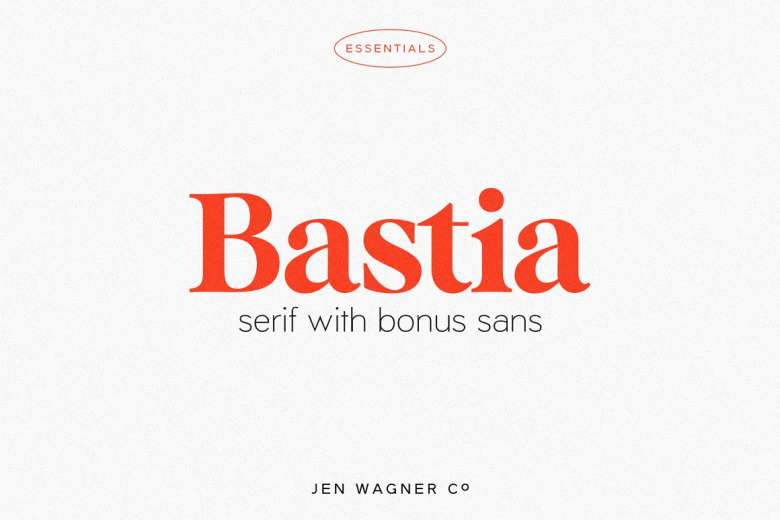
Bastia Font
Meet Bastia – a brand new serif with a bonus sans for perfect pairing! I’m always combining sans and serifs in my design work, and I wanted to make the perfect pair for you too. Bastia is a classy, bold upper and lowercase type that looks stunning big or small. As a display for headings and logos, its clean lines and smooth curves adds an extra something to any project.
Look over to the 12th sample image to see how that looks when used for body text. I also love to combine Bastia and Halifax for minimal logos – all the heart eyes for the “Lucky Finch” logo sample! And that’s not all; you’ll get an outline version of the serif when you download it. Now you have the option to layer text or just elevate your logo or display type with some added flair.
Bastia Modern serif Font